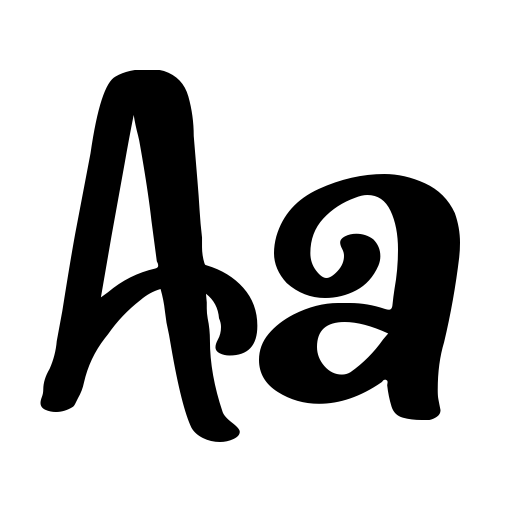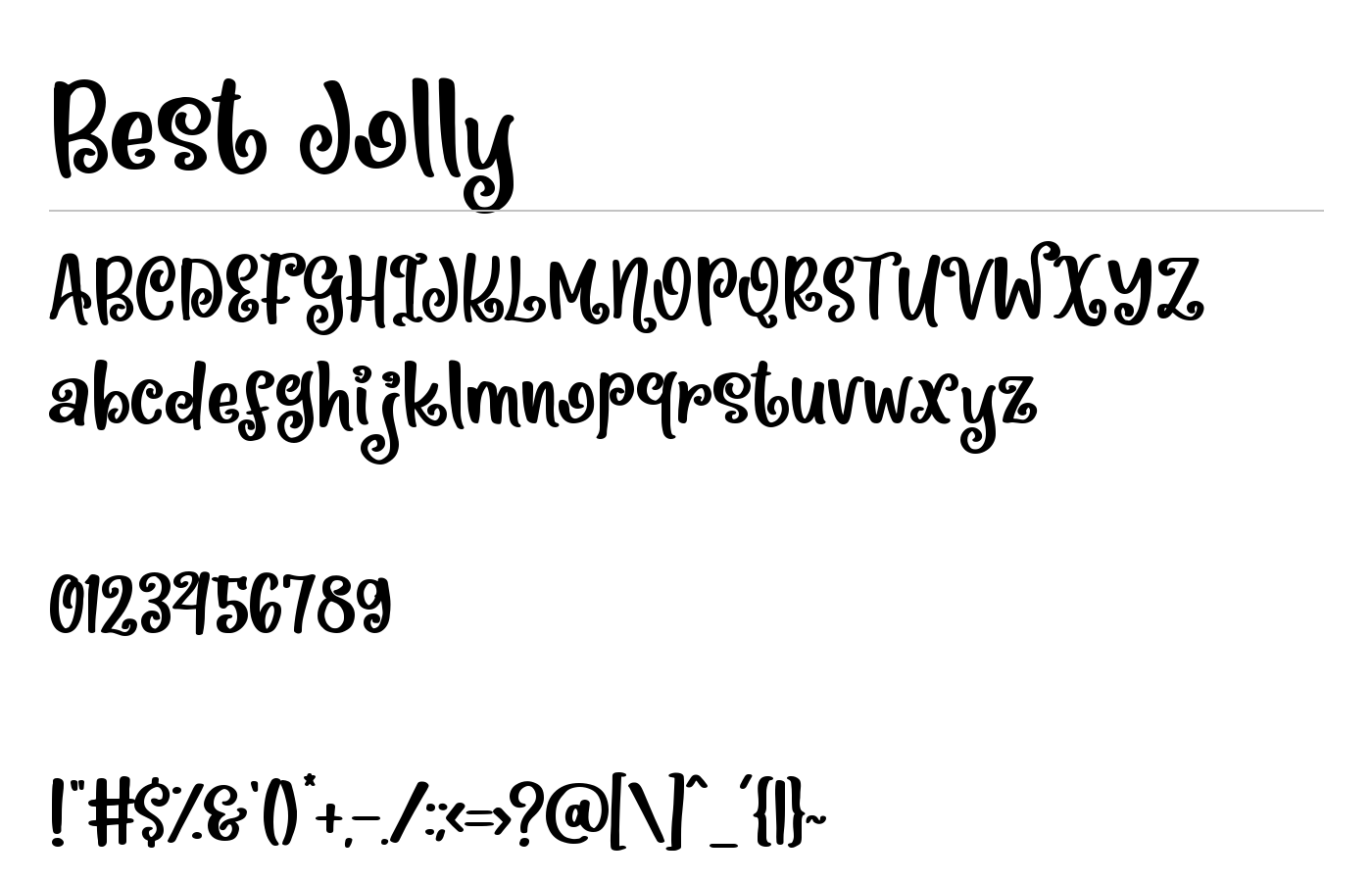
Best Jolly is a playful, decorative script font with a bold, bubbly style that features unique, swirling terminal details on many characters. Its lively, friendly appearance makes it ideal for cheerful branding, party invitations, or children’s products, where a fun and whimsical tone is needed. The font’s distinct personality shines best in headlines or display use, bringing an energetic and joyful vibe to any design.
Best Jolly Font
About Best Jolly Font
| Font family | Best Jolly Font |
| Designer | Dimas Prasetyo |